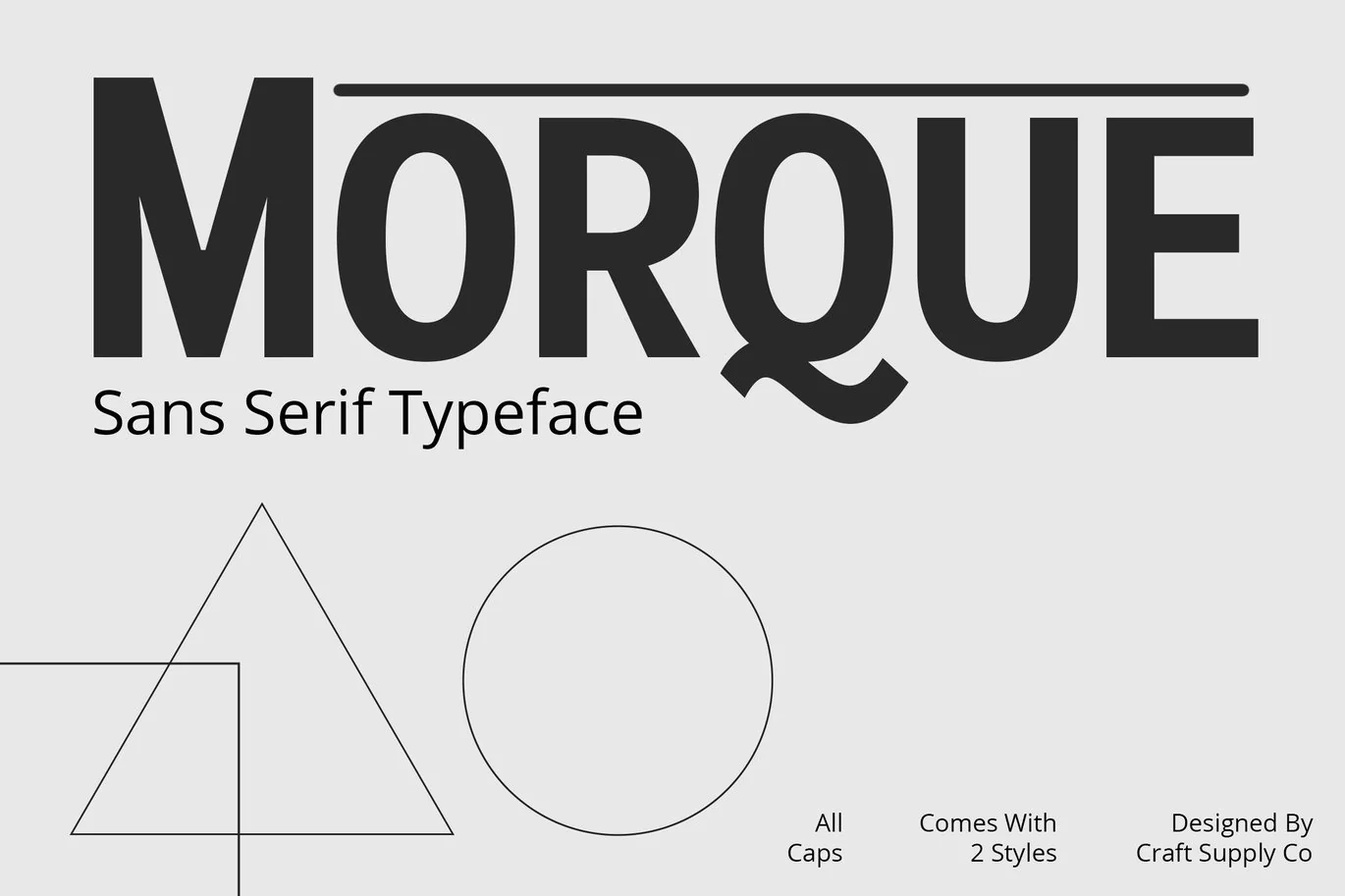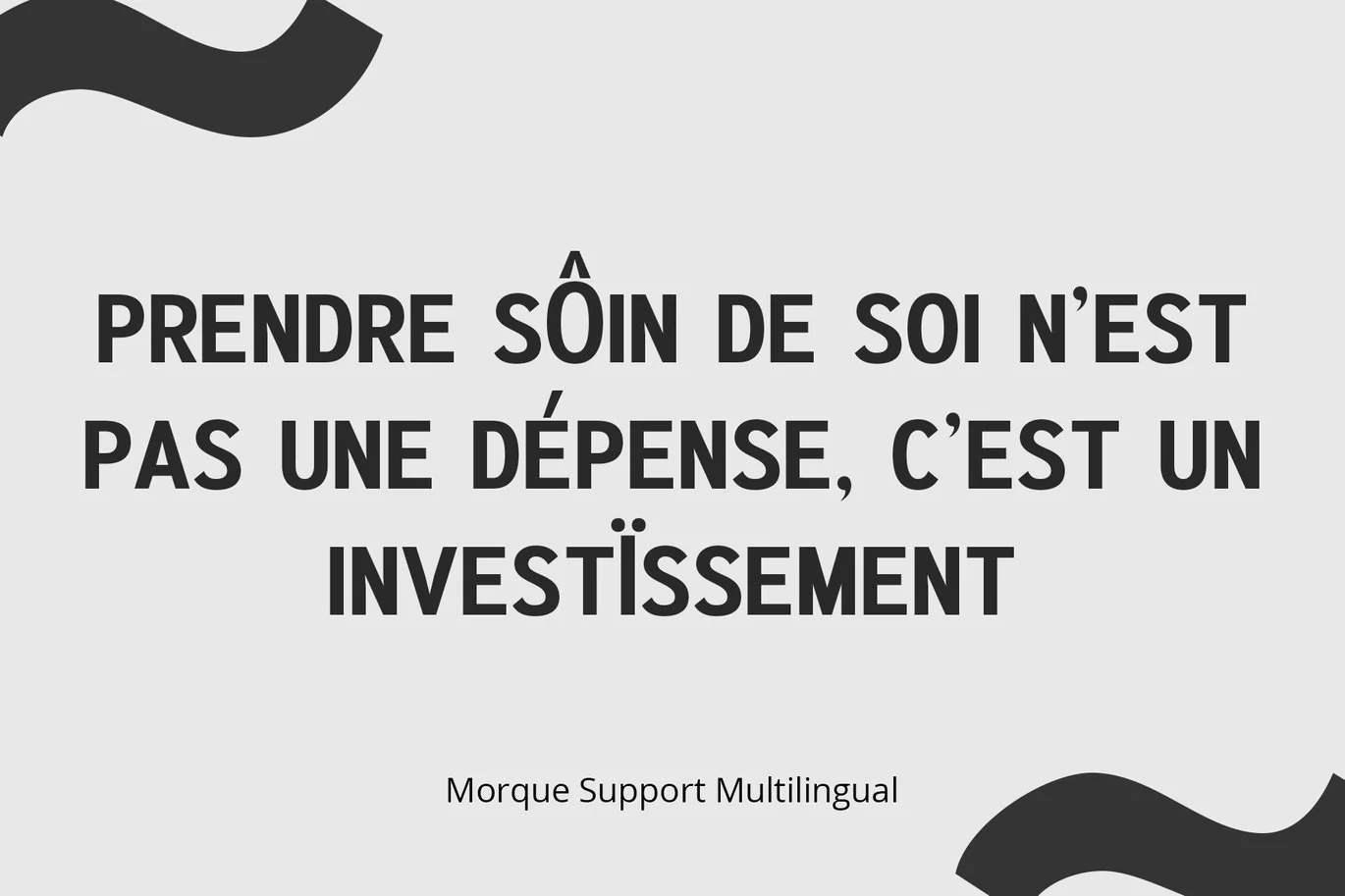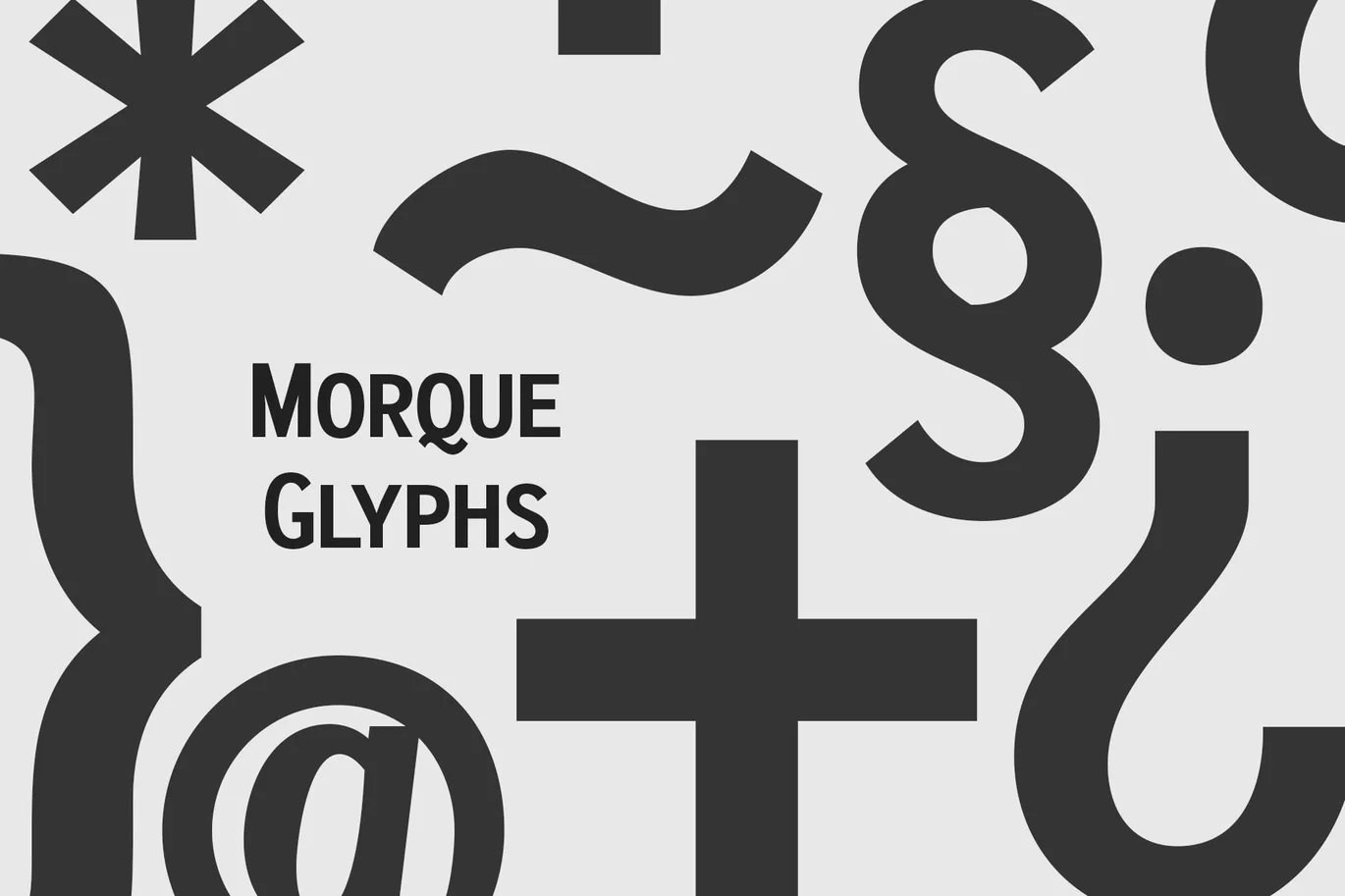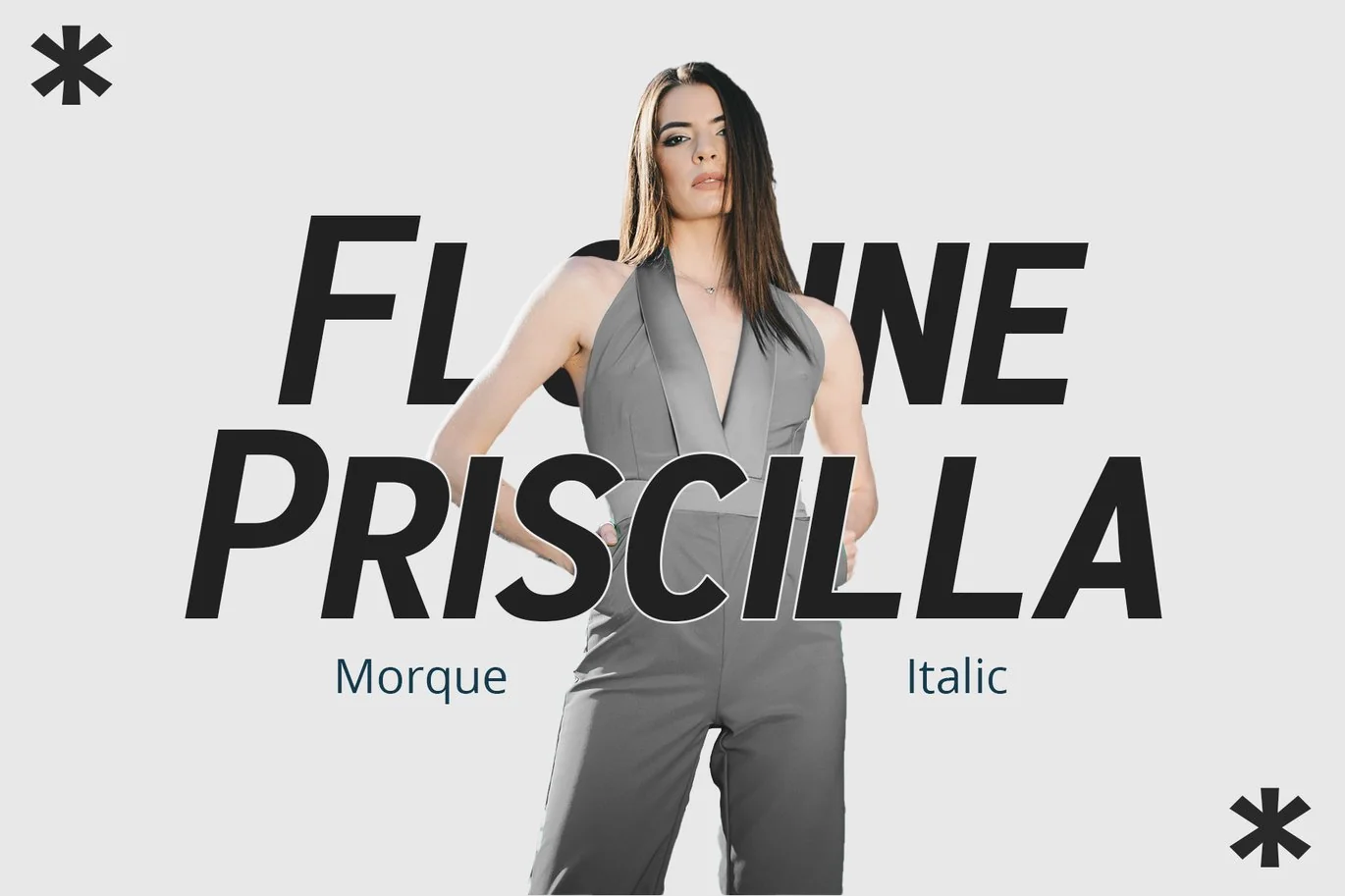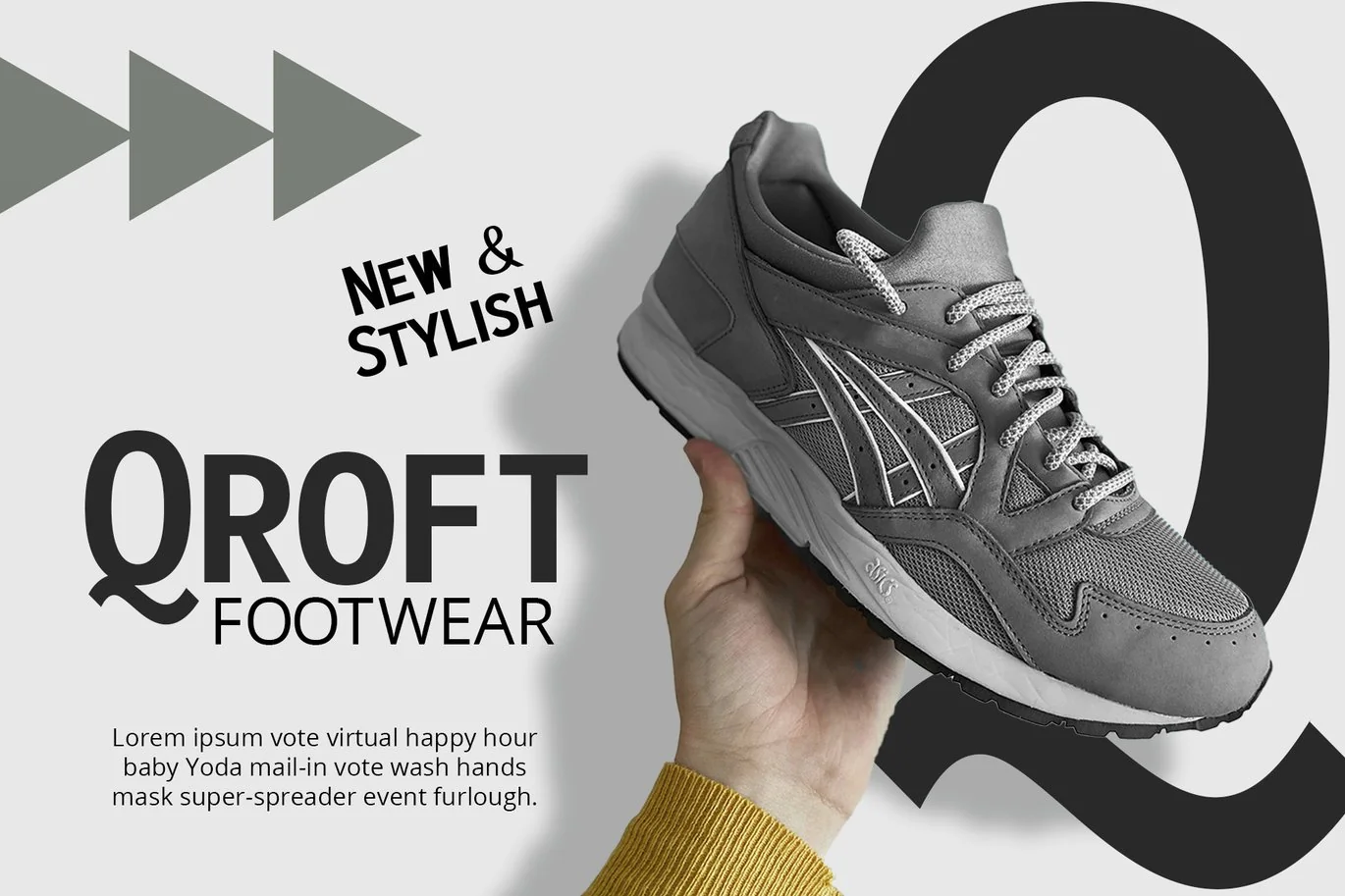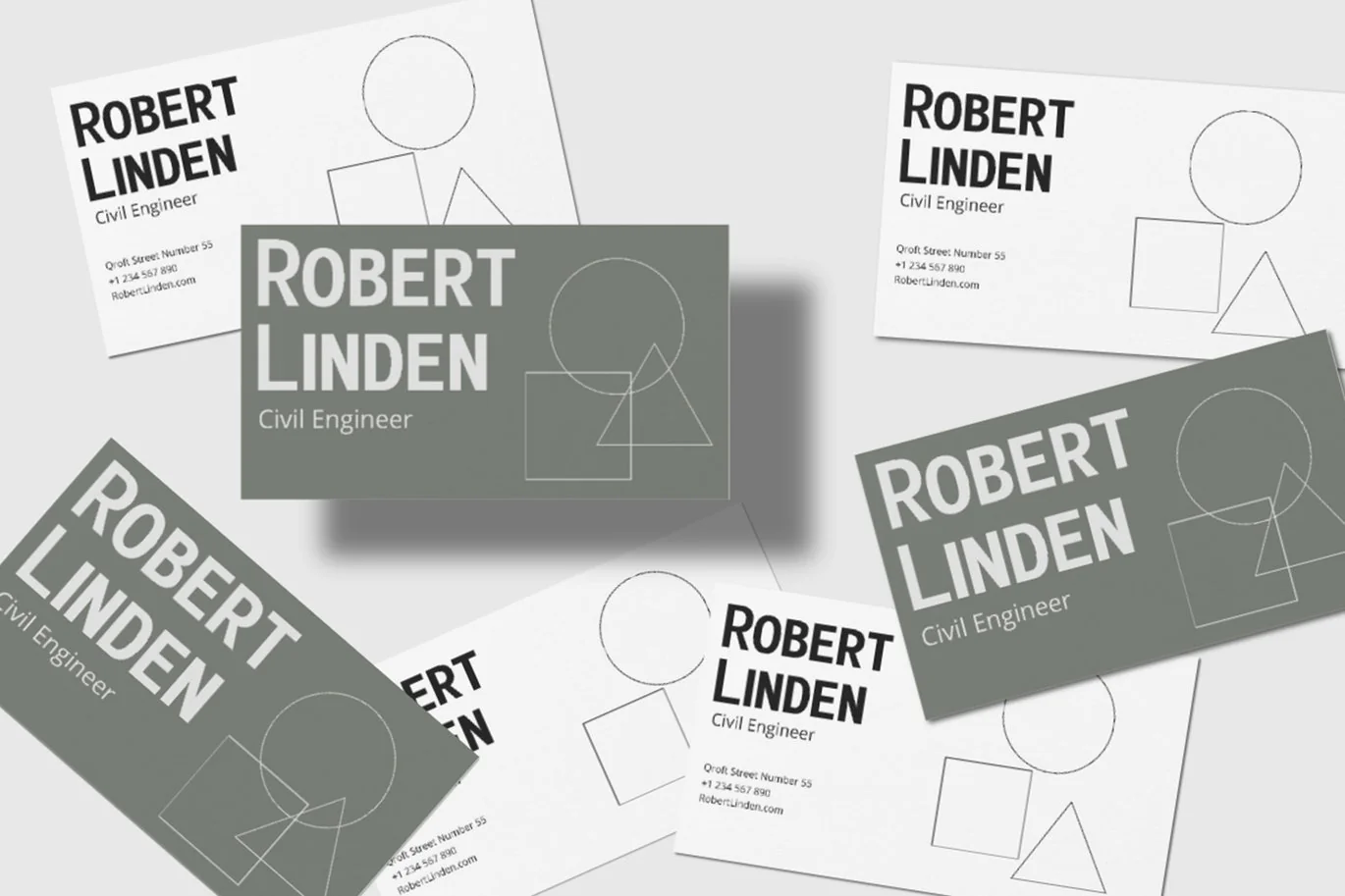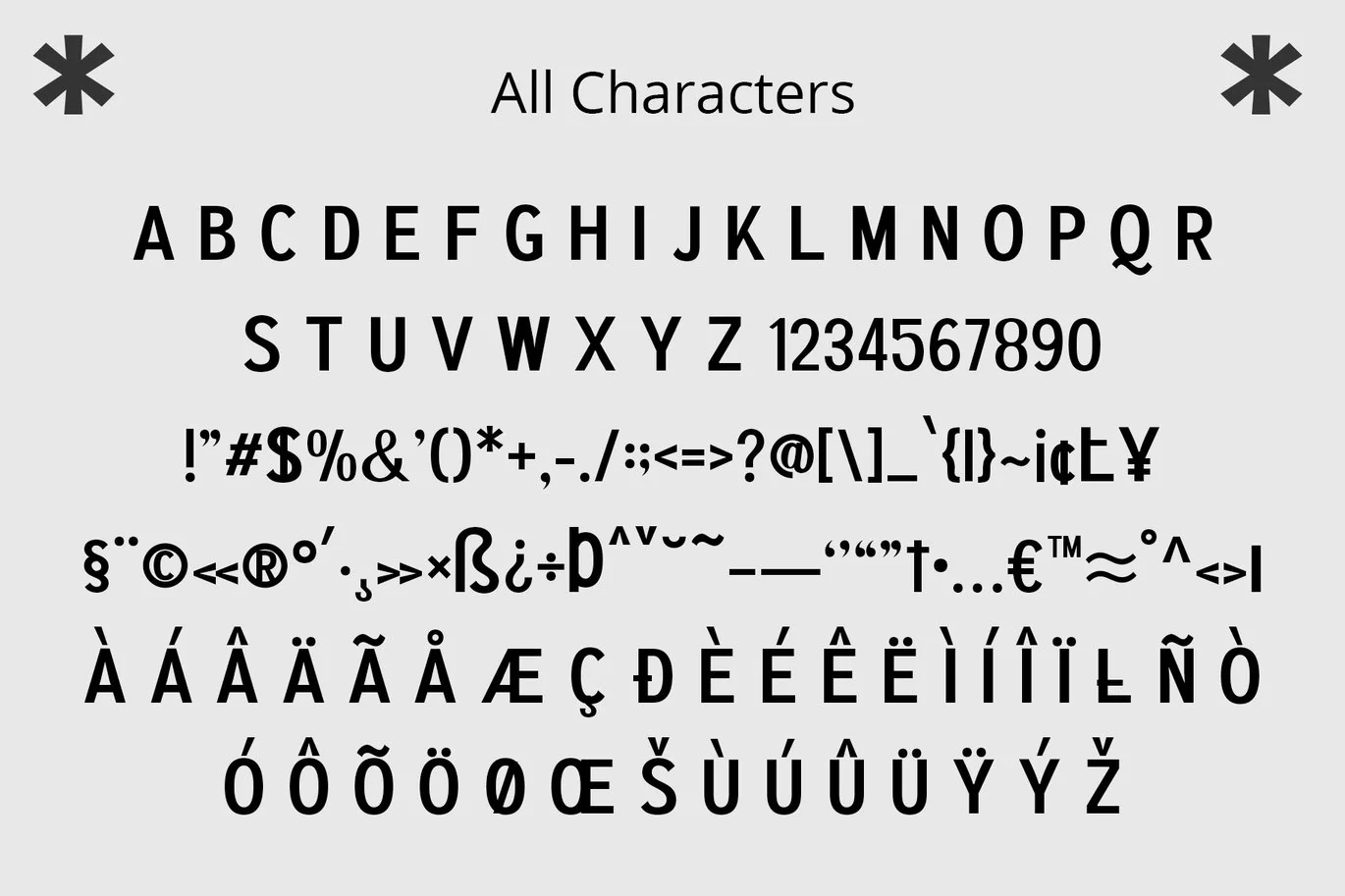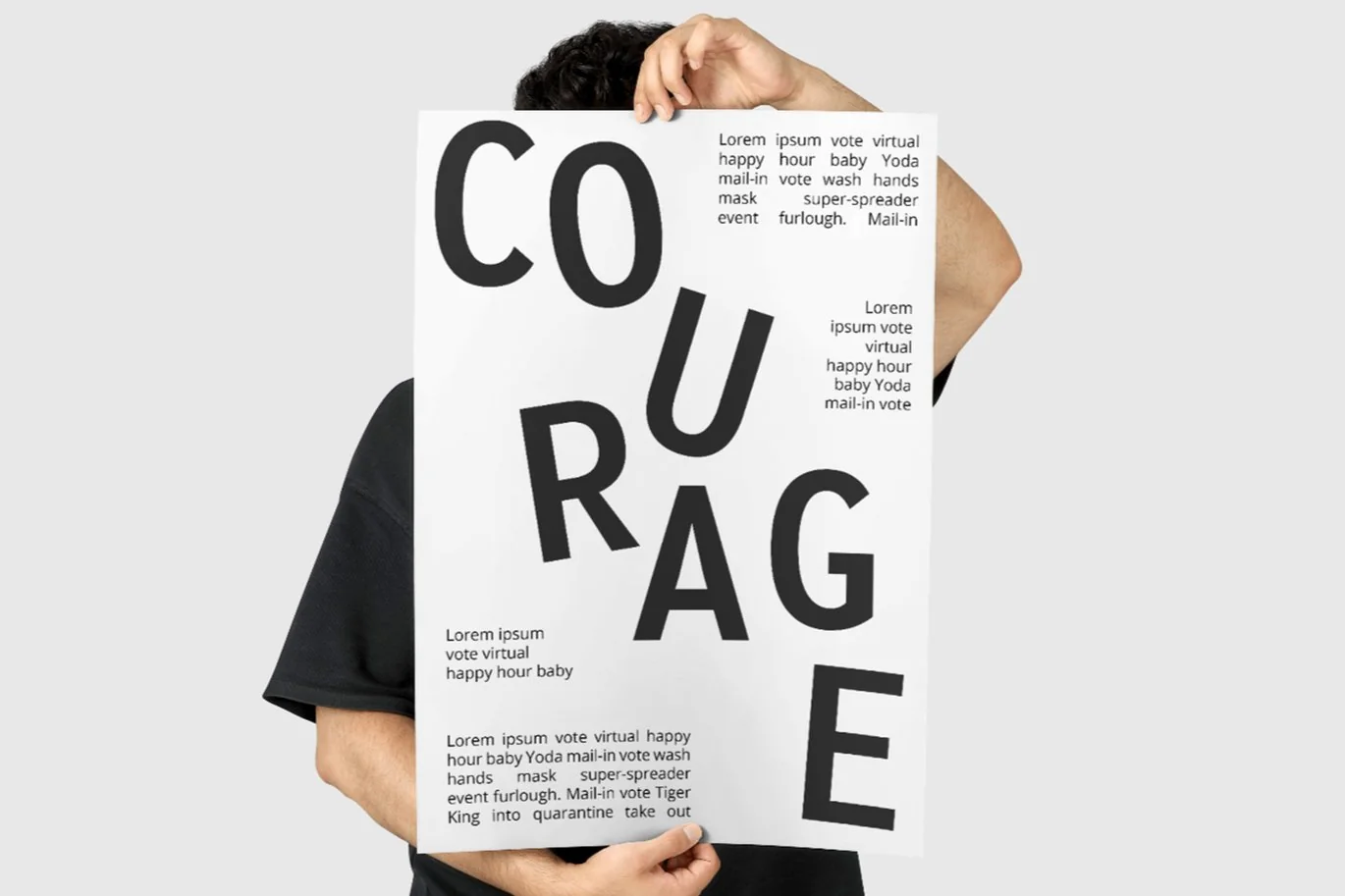
Morque – Sans Serif Font
Morque – Sans Serif Font: Bold and Expressive
Boldness in Every Letter:
Morque – Sans Serif Font stands out with its all caps design. It’s perfect for impactful titles and displays. This font commands attention in any visual space.
Ideal for Titles and Displays:
Morque’s bold structure makes it ideal for titles and visual displays. It enhances the readability of headlines. This font is a go-to for designers aiming for a strong statement.
Morque Regular
Morque Italic
Uppercase and lowercase characters
Accents (Supports Multilingual Characters)